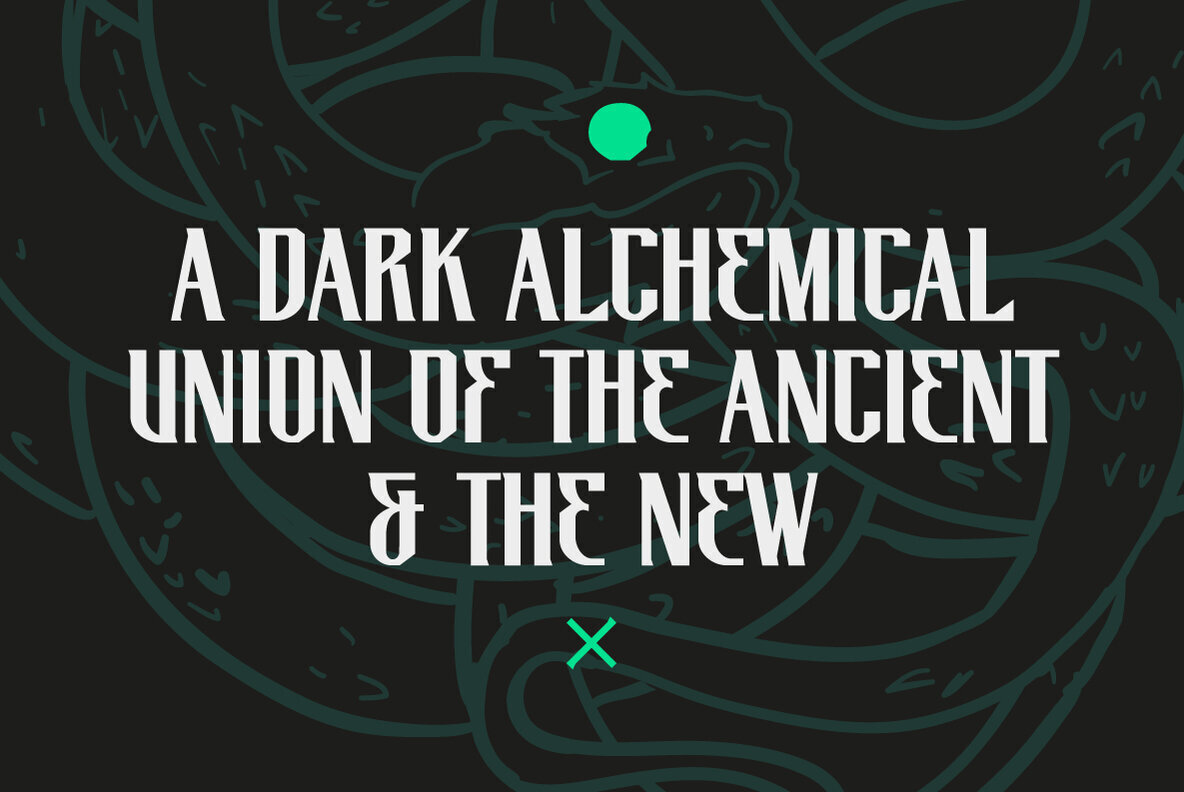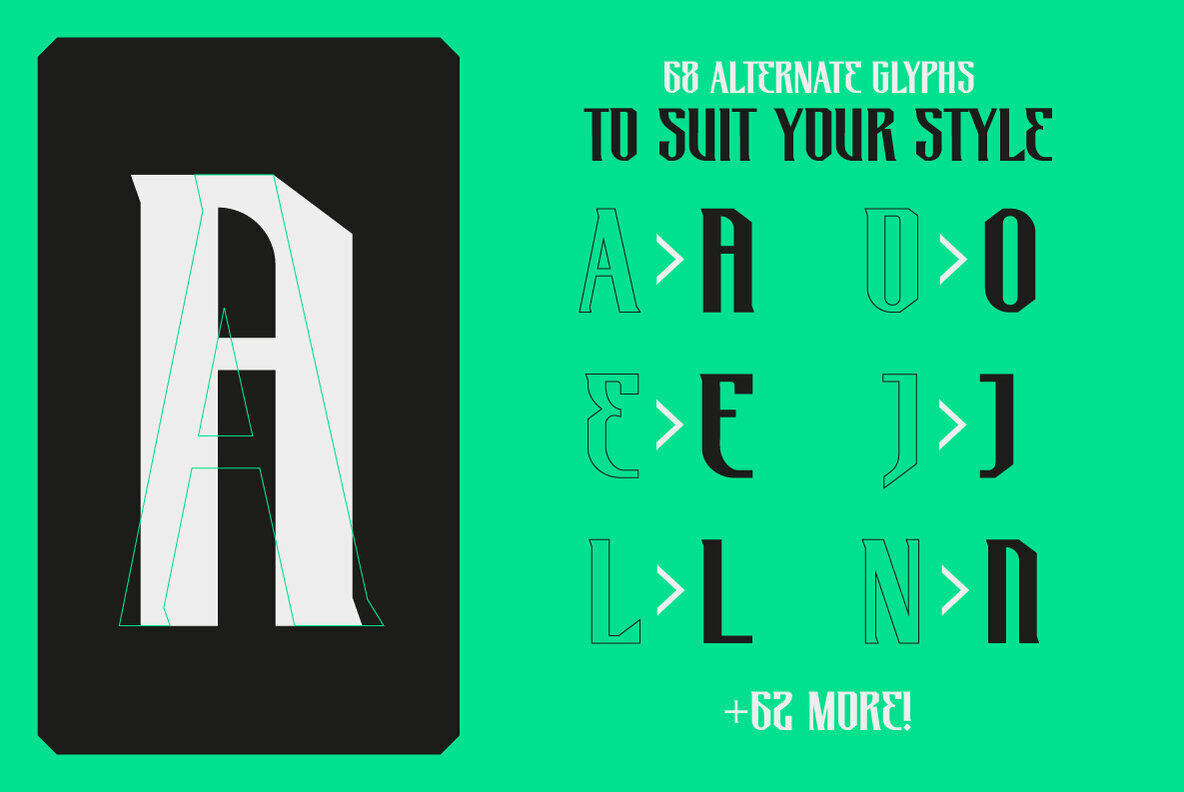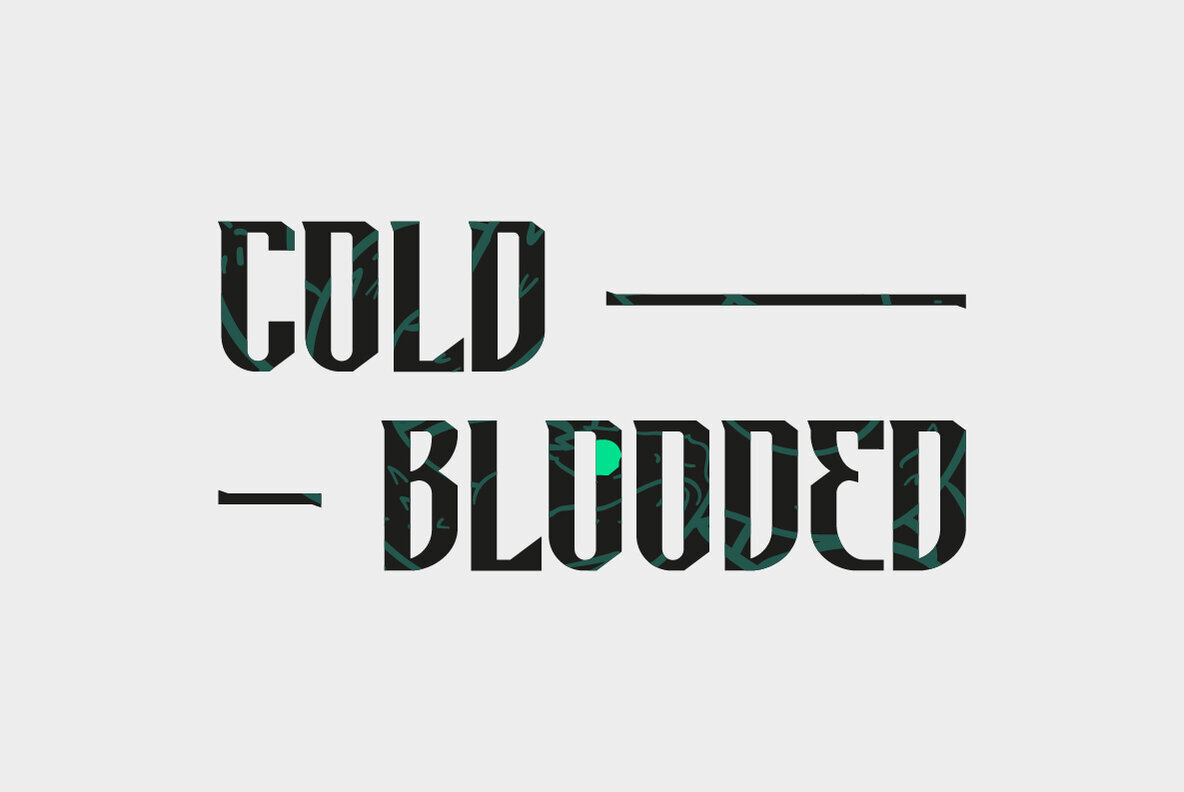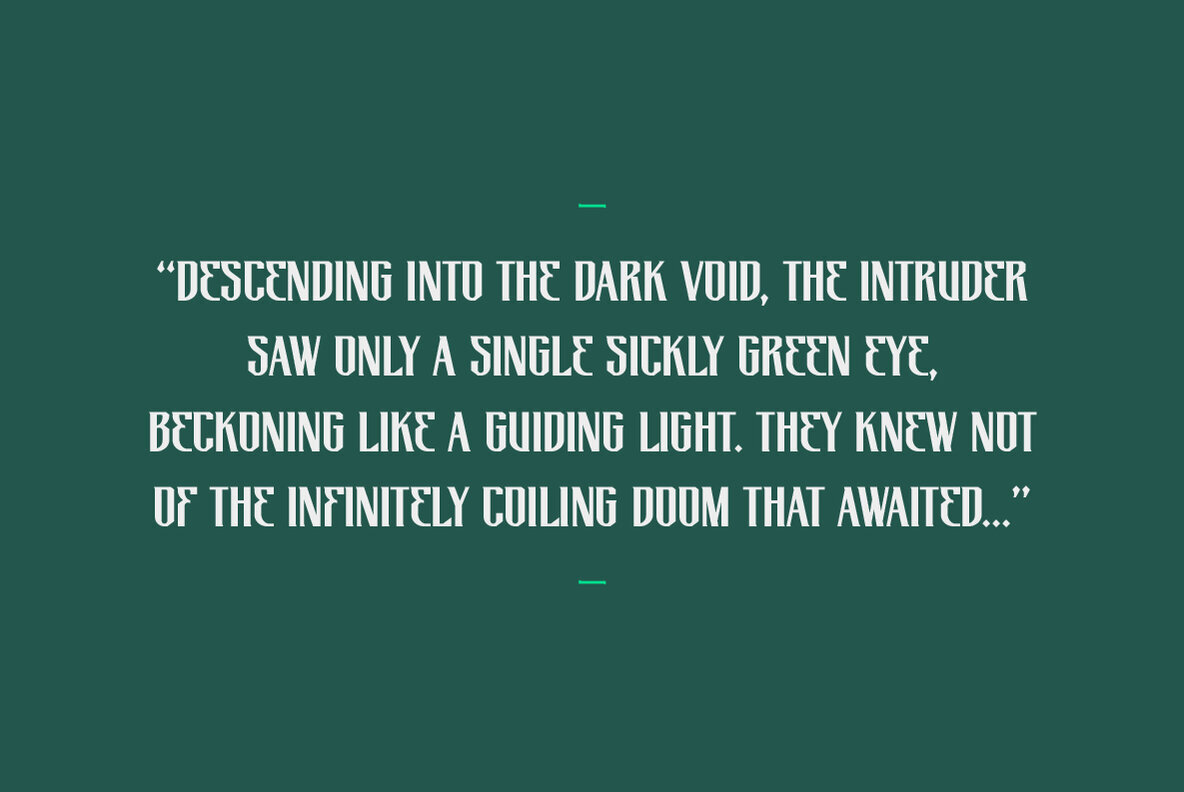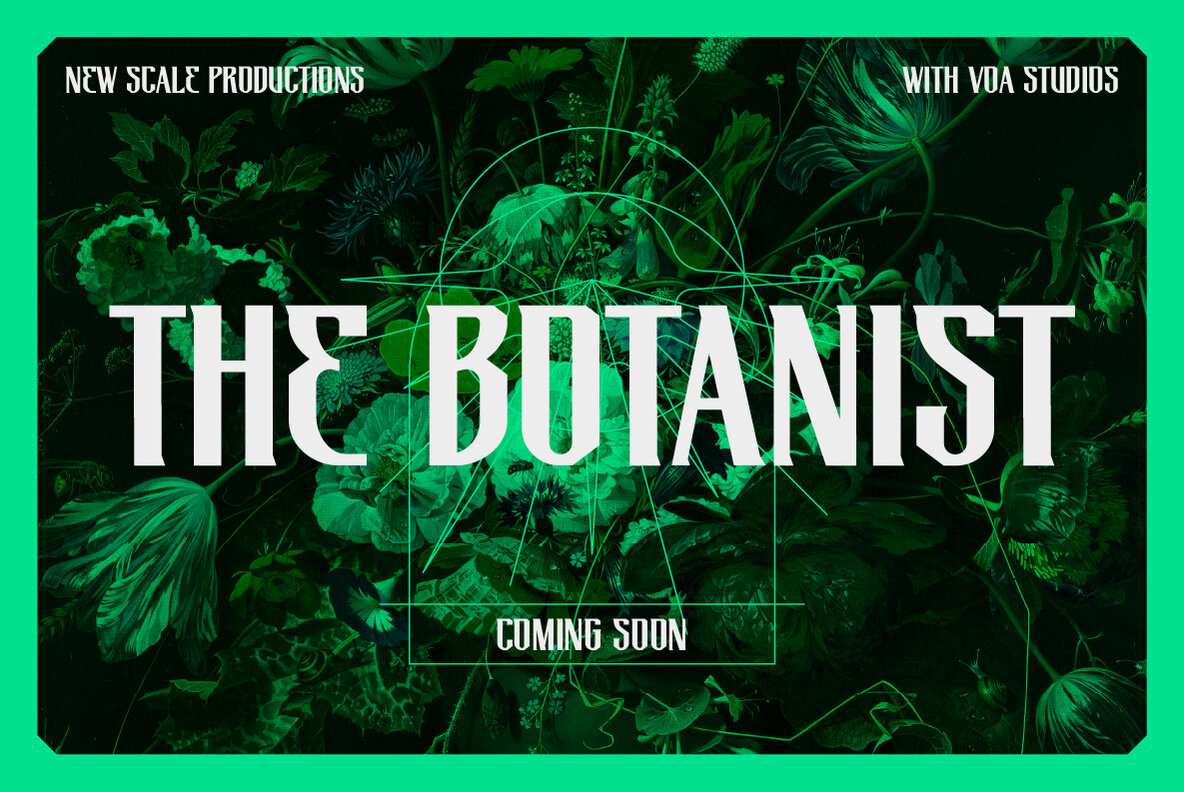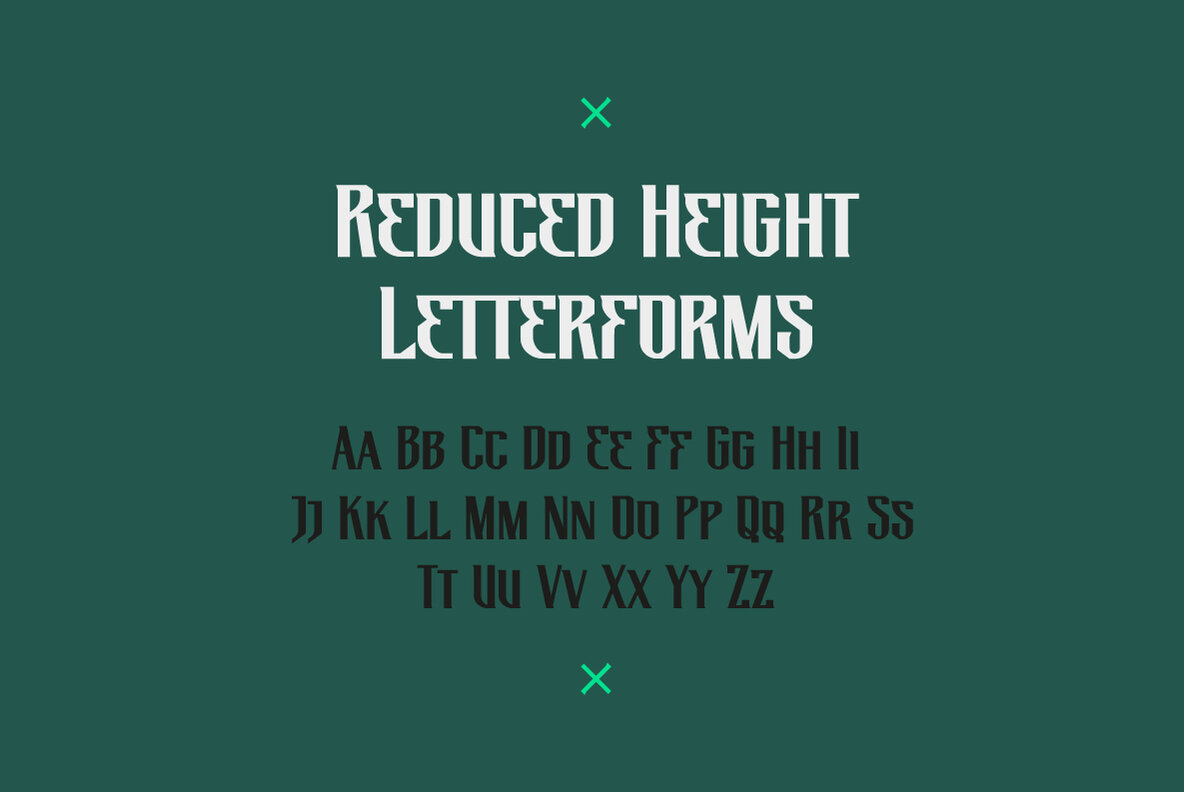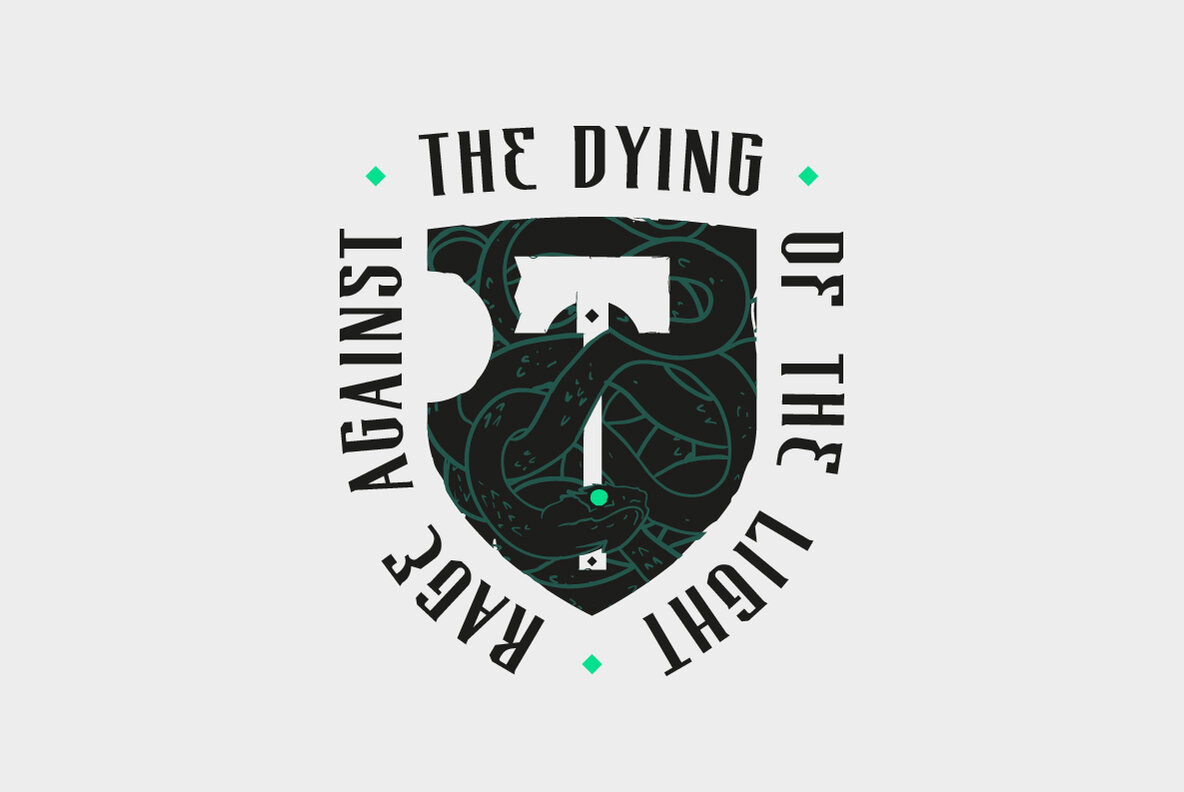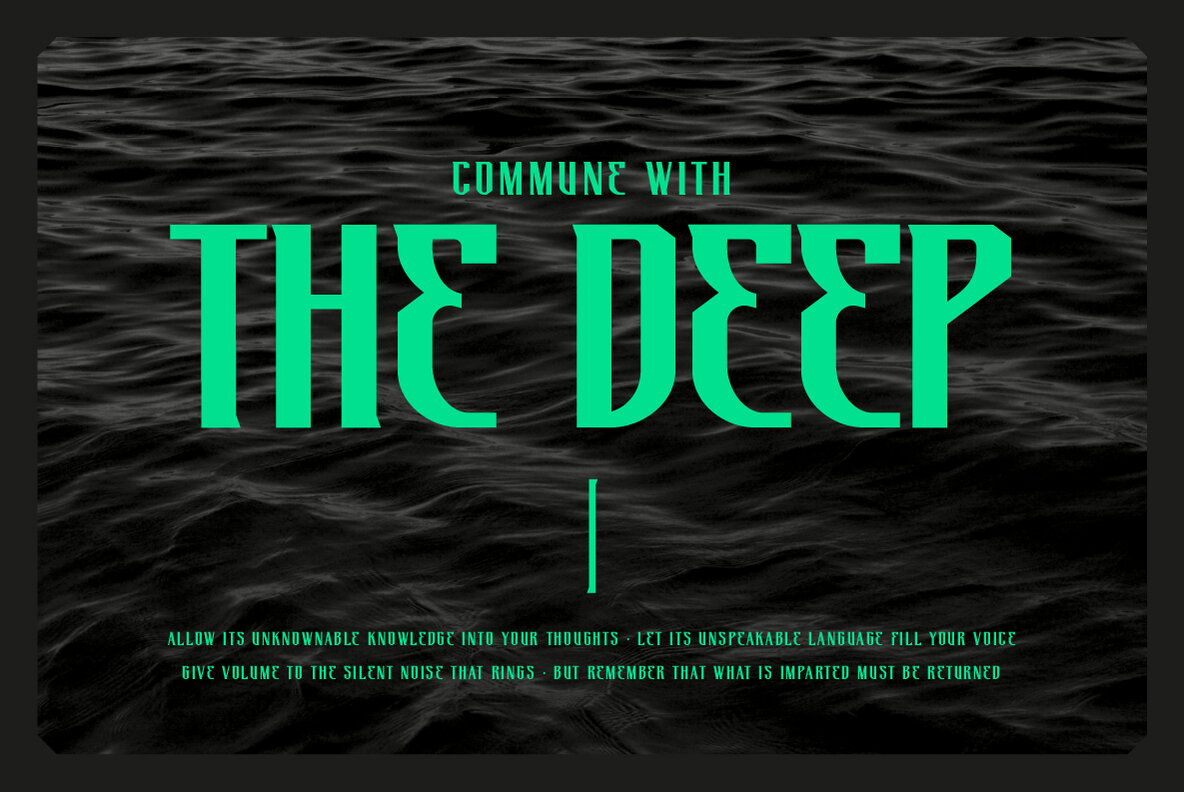
Basilisk Font
Basilisk
A dark alchemical union of the ancient and the new, melding bold, tall letterforms with sharp angular details. It possesses familiar characteristics, yet still feels strange and unfamiliar. Perfect for capturing a modern fantasy or dark sci-fi vibe.
Features a full latin character set, plus 68 alternate glyphs for various uppercase and lowercase letters.
Although it is an all-caps-styled font, in place of repeating the same glyphs over both upper and lower cases, the lower case letters have a reduced height, allowing for more flexibility and creative use.